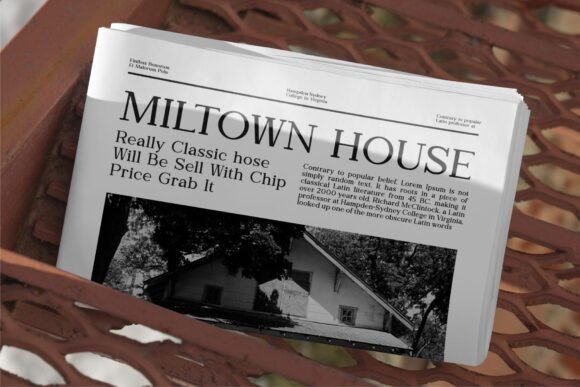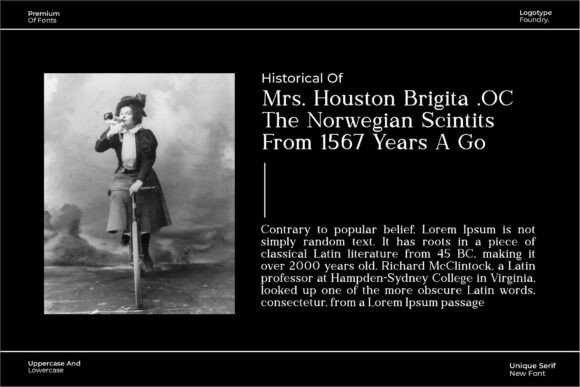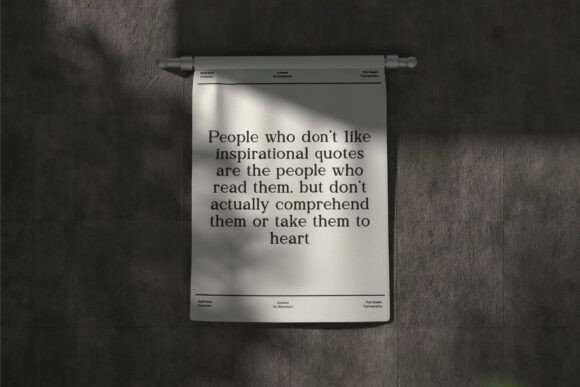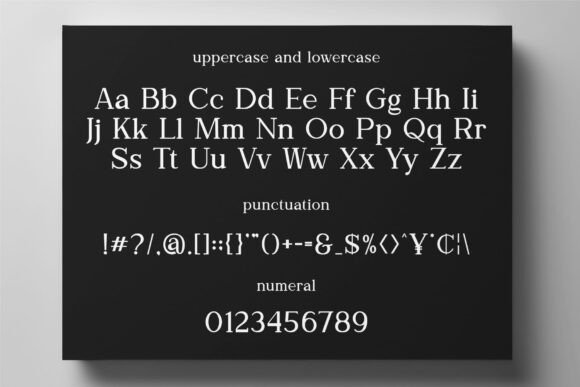
Introduction to Rapshodi Gliternas Font
Rapshodi Gliternas is a refined and timeless serif font with a classic and vintage appeal.
Featuring elegant letterforms and balanced proportions, this typeface is perfect for editorial layouts, branding, book covers, invitations, and luxury designs Its subtle charm and sophisticated aesthetic make it a go-to choice for projects that require a touch of heritage and class.
Key Features of Rapshodi Gliternas Font